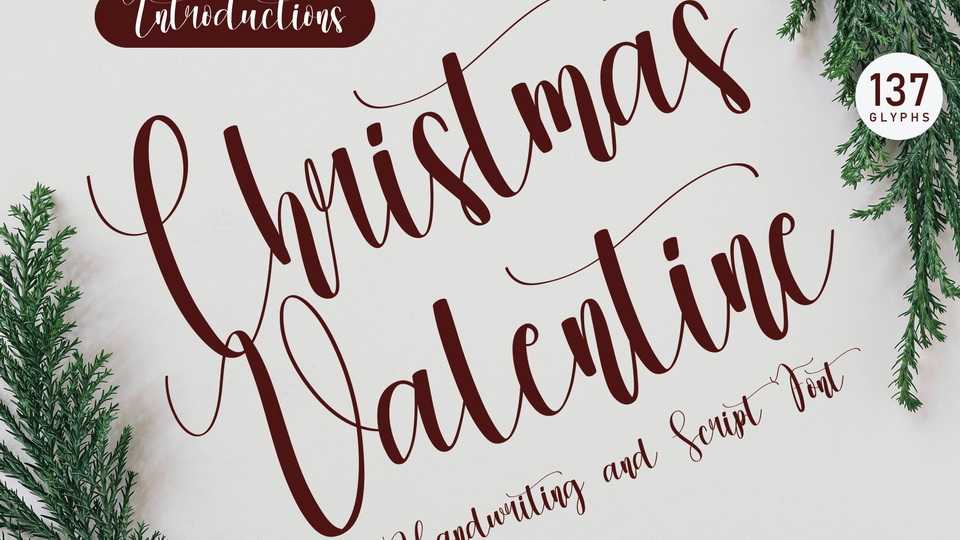
Download Christmas Valentine font, a stylish and bouncy handwritten typeface, great for most creative ideas. Christmas Valentine font is perfect for wall displays, wedding invitations, social media, logos, advertisements, packaging and more.